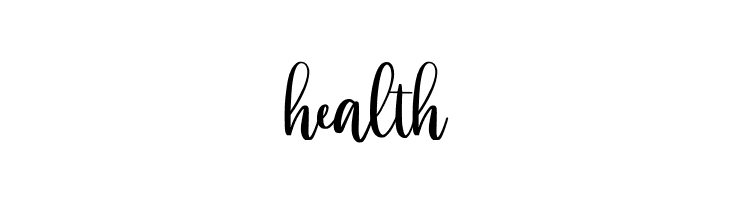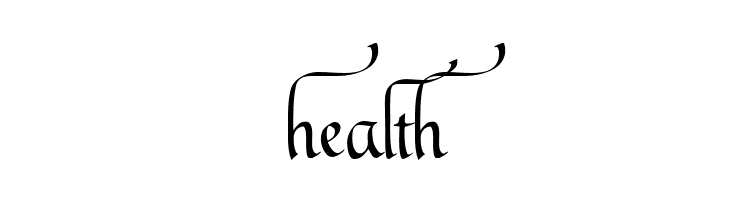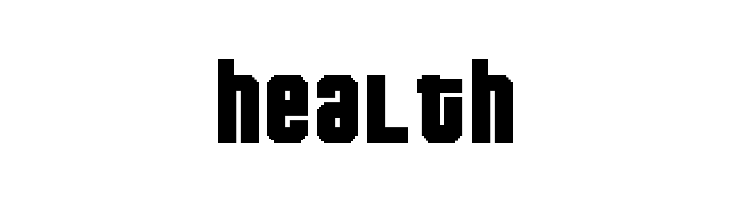
A cursive, calligraphy-inspired font with elegant loops and swashes.
An elegant, ornate script font inspired by 18th-century calligraphy.
An elegant, calligraphy-inspired font with ornate details and flowing curves.
A bold, pixelated font with a retro digital aesthetic.
An elegant, flowing script font with a whimsical, handwritten calligraphy style.
A bold, angular font with a modern twist on traditional calligraphy.